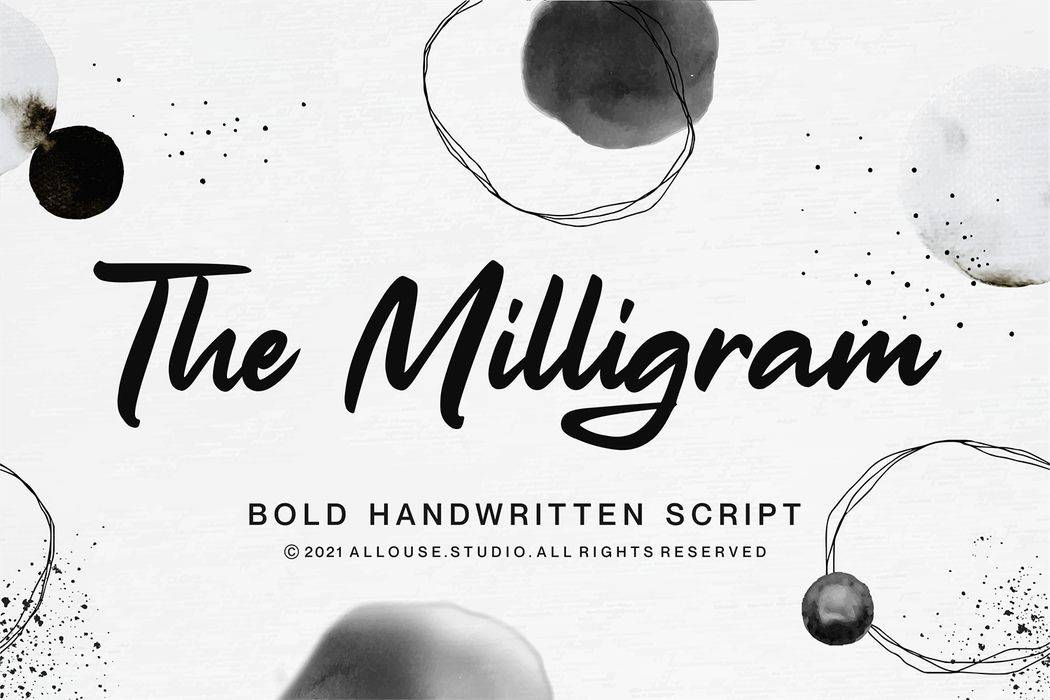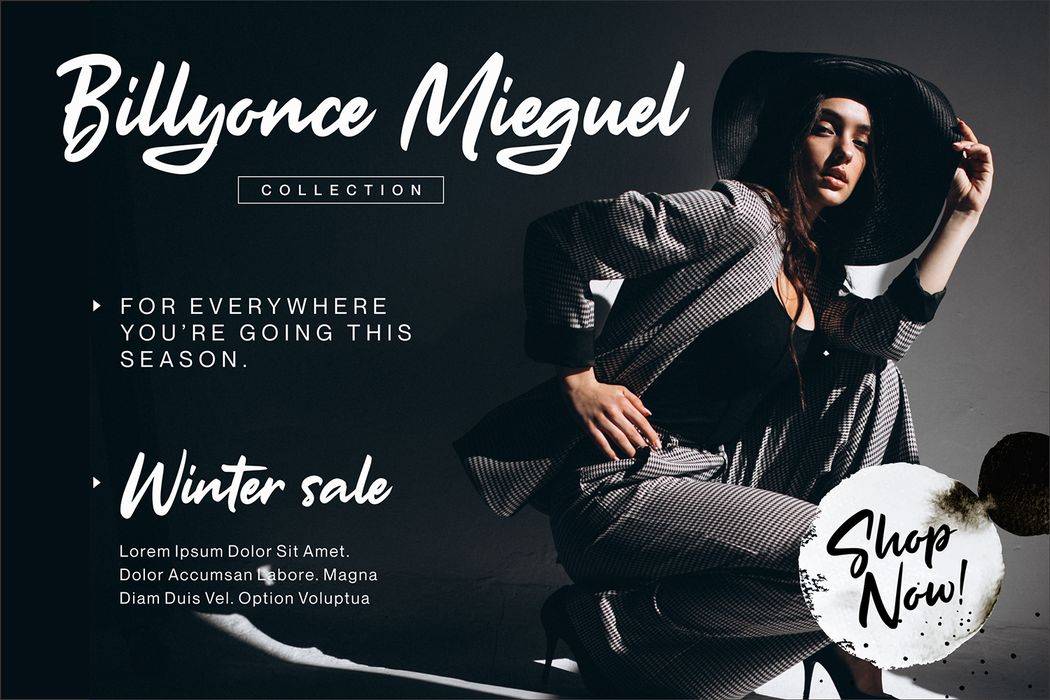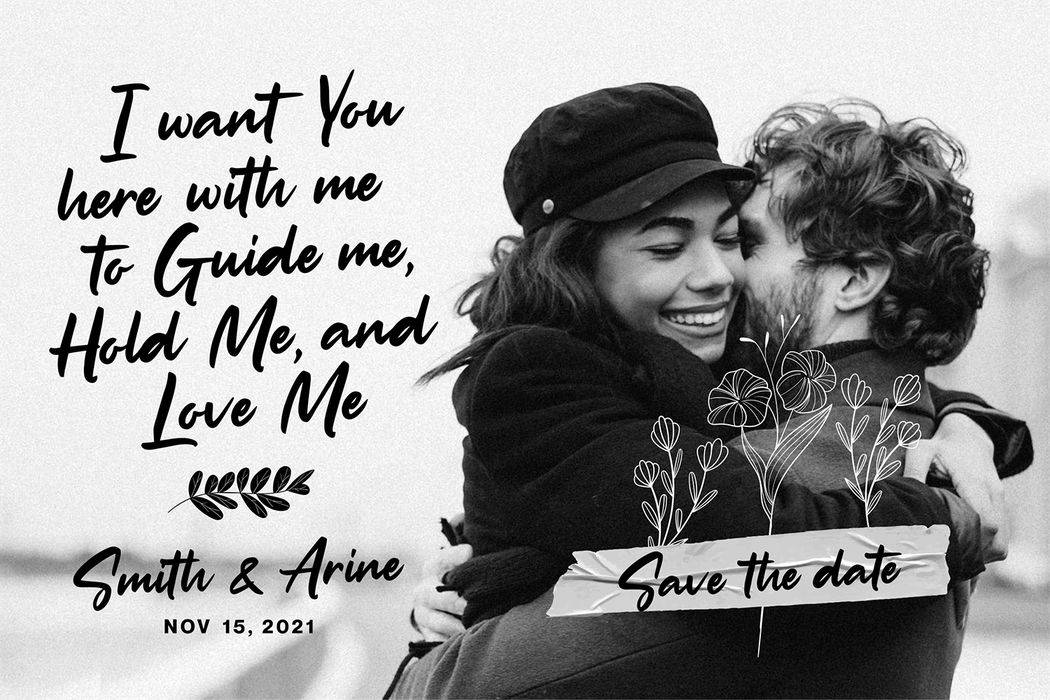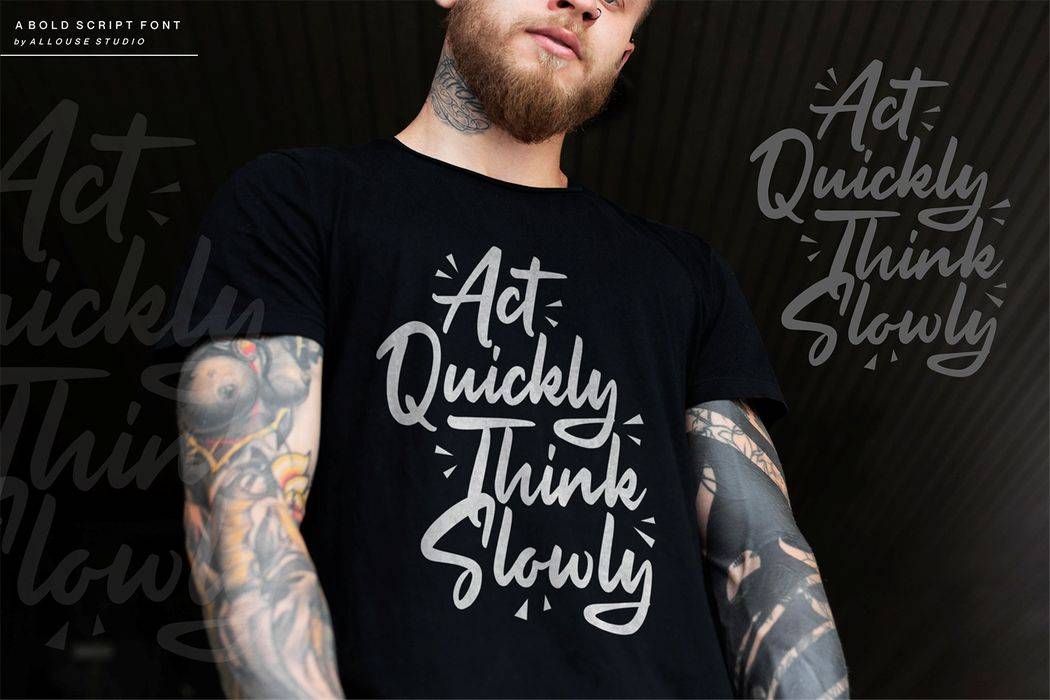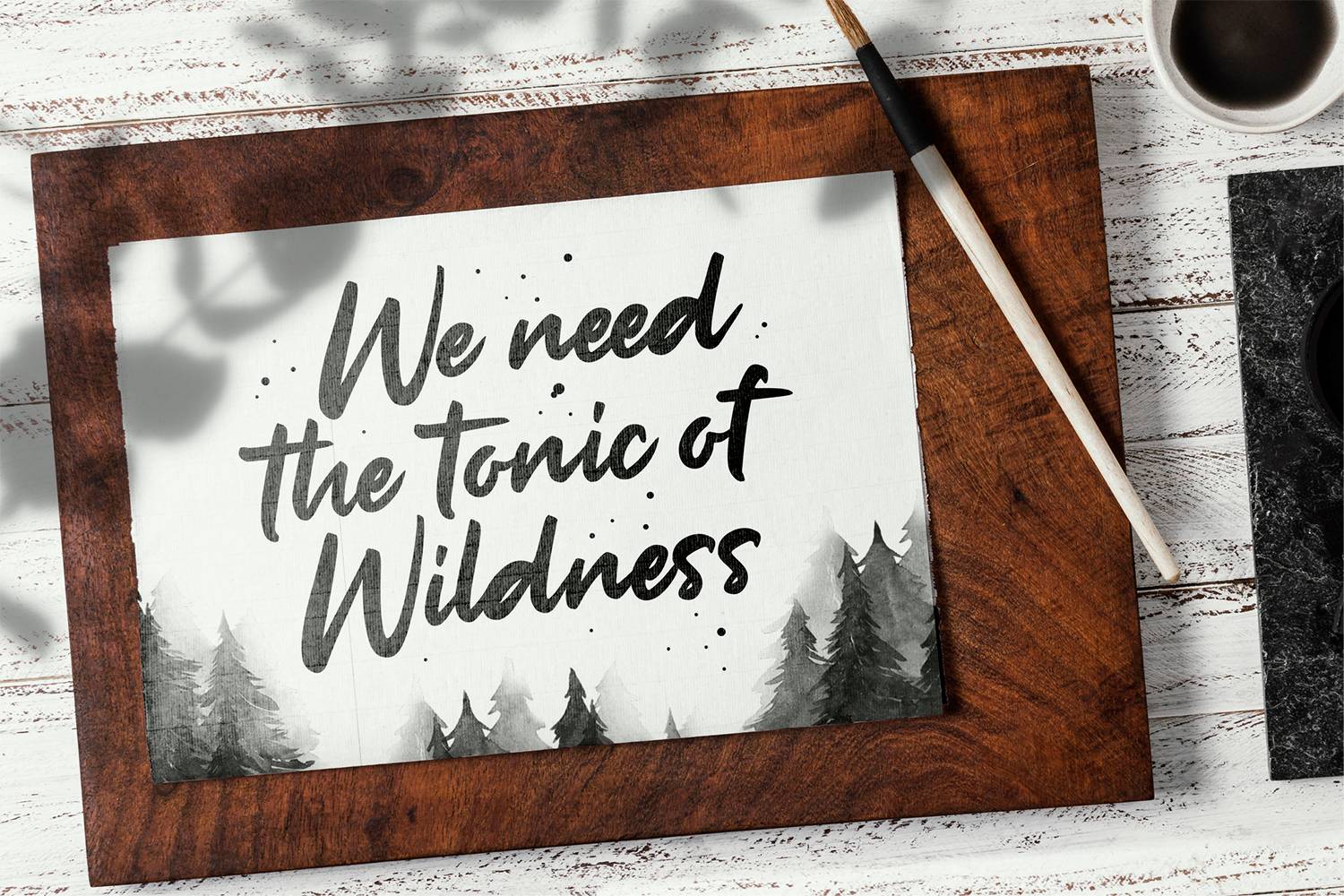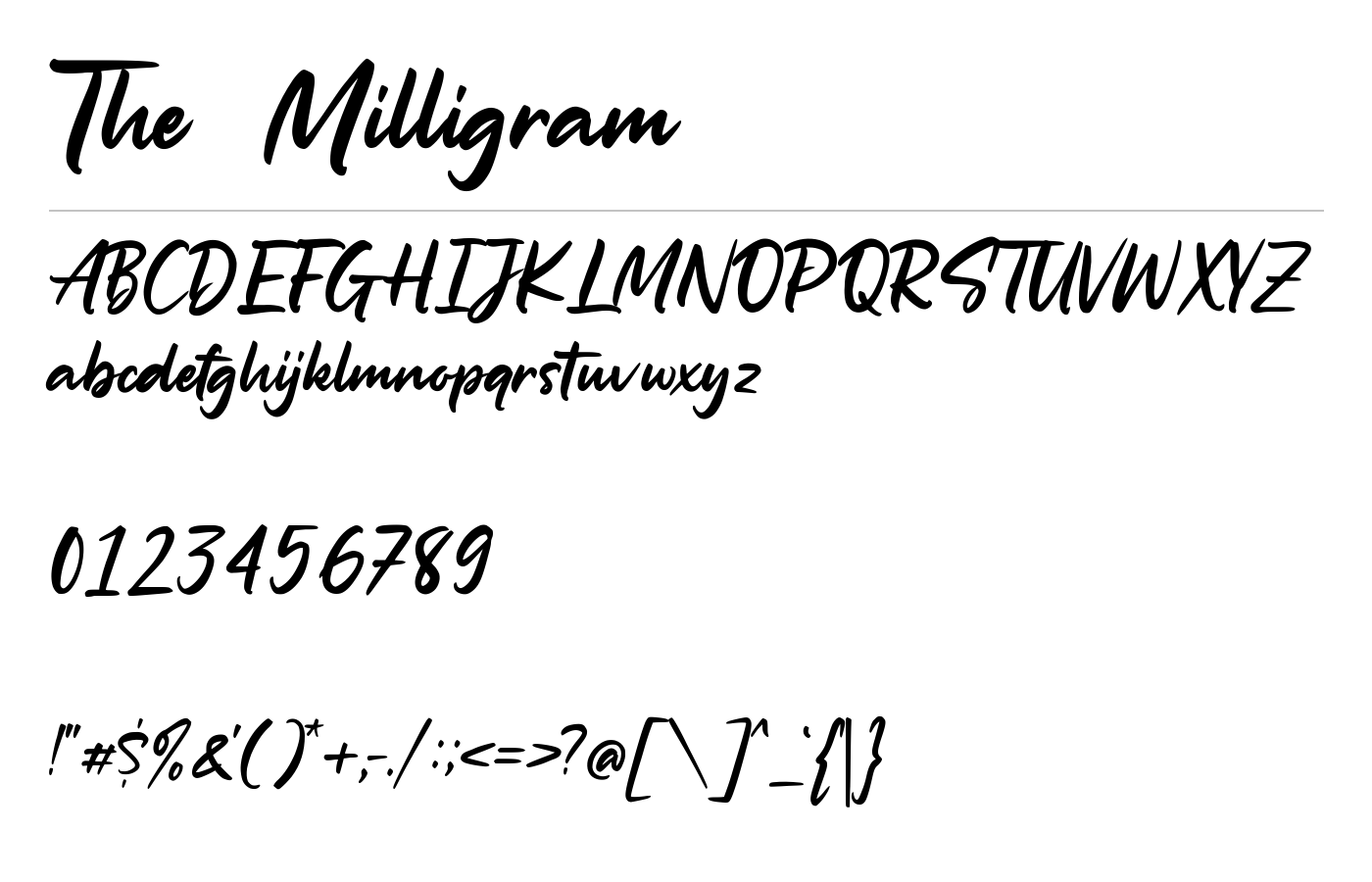
The Milligram Font is a lively and modern script typeface with a hand-lettered feel, featuring smooth, medium-weight strokes and a comfortable, natural flow. Its slightly condensed letterforms and casual yet elegant style make it ideal for creative branding, stylish headlines, and personal projects where a friendly and approachable personality is desired. This font works well in fashion, lifestyle, and editorial designs that seek to convey warmth and contemporary charm.
The Milligram Font
About The Milligram Font
| Font family | The Milligram Font |